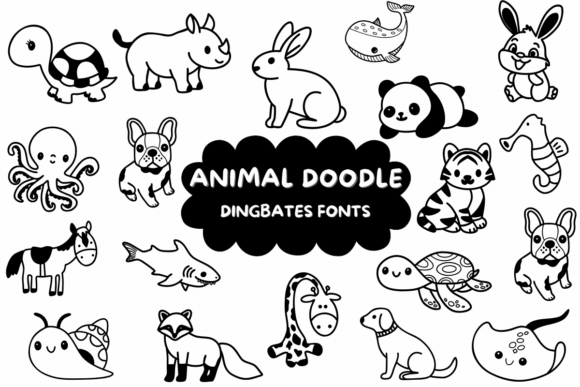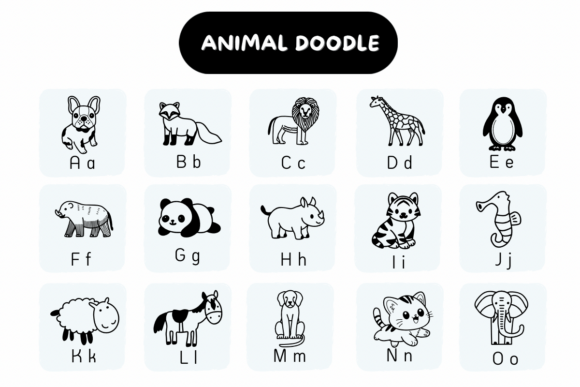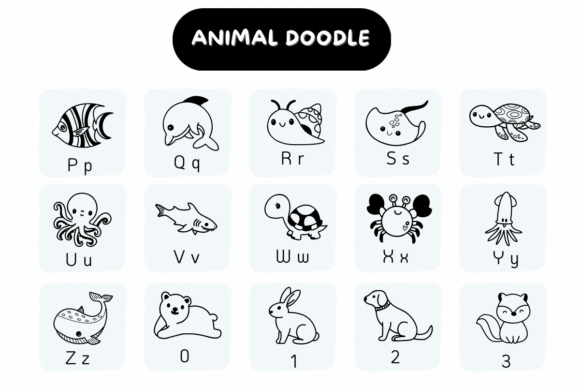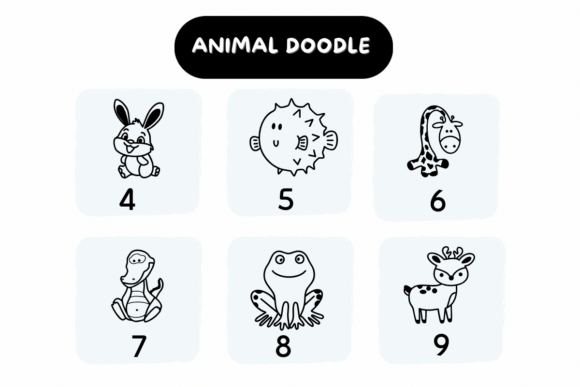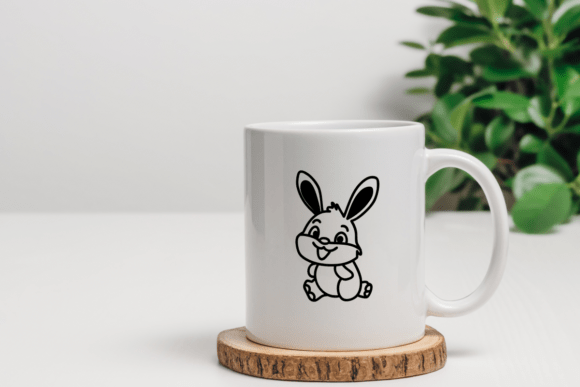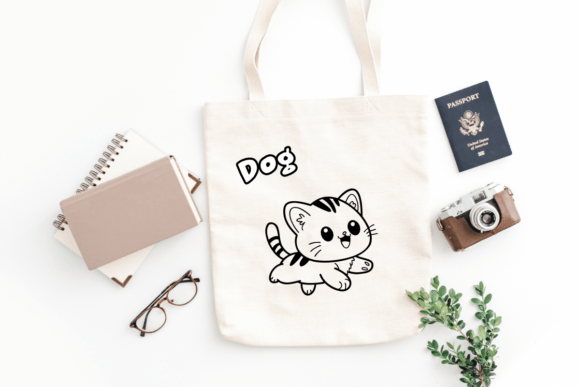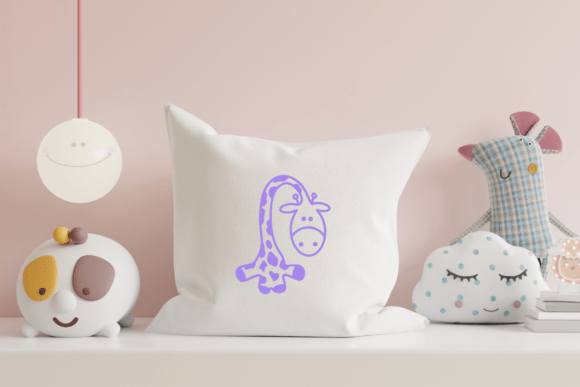
Unleash Your Creativity with Animal Doodle Font
Who hasn’t sat at their desk, staring blankly at a blank page, waiting for inspiration to strike? For many of us, the spark of creativity comes from a simple doodle – a playful squiggle, a whimsical flourish, or a quirky animal shape. That’s exactly where Animal Doodle Font comes in – a delightful dingbats font that brings a touch of hand-drawn charm to your projects.
This sketched style font is perfect for designers looking to add a personal touch to their work. Whether you’re crafting a wedding invitation, designing a logo, or creating a DIY craft, Animal Doodle Font can help you stand out from the crowd. With its playful, whimsical feel, this font is sure to bring a smile to your face and a touch of magic to your creations.
Animal Doodle Font Key Features
- Unique Hand-Drawn Style: The font features a playful, hand-drawn design with whimsical animal illustrations, making it perfect for children’s books, educational materials, and creative projects.
- Multi-Font Family: The Animal Doodle Font comes in a range of weights, from Light to Bold, allowing for flexibility in design and layout.
Review of Animal Doodle Font
I recently had the chance to work with the Animal Doodle Font, and I must say it’s a unique and playful addition to any design project. Here’s my honest review:
- ✨ The font’s whimsical design is perfect for children’s books, party invitations, or any project that needs a touch of fun and personality.
- ✨ The font is highly customizable, allowing you to adjust the size, color, and spacing to fit your design needs.
- ✨ The font includes a wide range of animal characters, making it easy to create engaging and interactive designs.
- ⚠️ The font may not be suitable for formal or professional projects, as its playful design may come across as unprofessional.
- ⚠️ The font’s size and spacing can be difficult to adjust, leading to inconsistent design elements.
- ⚠️ Some users may find the font’s animal characters too simplistic or lacking in detail.
Overall, I think the Animal Doodle Font is a great addition to any designer’s toolkit, but it’s essential to use it in the right context. With its playful design and high level of customization, it’s perfect for projects that need a fun and engaging touch. However, it may not be the best choice for formal or professional projects.
Some common use cases for Animal Doodle Font include:
– Creating custom invitations and greeting cards.
– Designing children’s books and educational materials.
– Adding a playful touch to marketing materials and social media posts.
– Using the font to create hand-drawn illustrations and graphics.
Alternatives to Animal Doodle Font
Yes, the Animal Doodle Font is fully editable in design software, allowing you to customize the font to fit your brand’s specific needs. You can adjust the size, color, and spacing of the font to create a unique look that matches your brand’s identity.